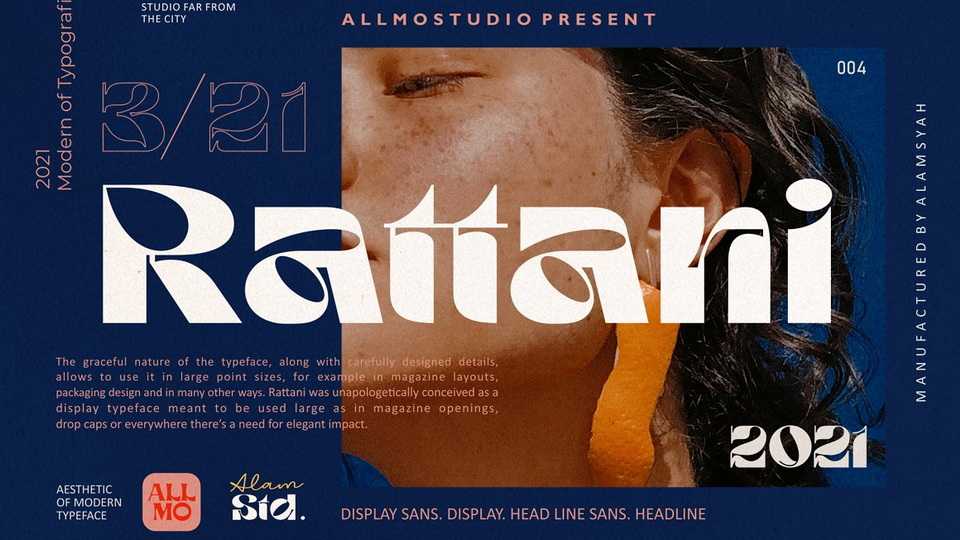
Download Rattani font, a bold and impressive display typeface with carefully designed details. Rattani is ideal to use in large point sizes, for example in magazine layouts, packaging design or everywhere there’s a need for elegant impact.
Designer: Allmo Studio